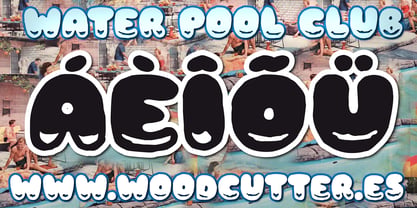
Water Pool Club
by Woodcutter
The Water Pool Club Font Family was designed by Jordi Manero and published by Woodcutter. Water Pool Club contains 2 styles and family package options. More about this family
Water Pool Club is a typeface family in uppercase letters with accents, featuring two styles that channel a retro fancy aesthetic inspired by summer clubs, poolside posters, and vintage magazine covers. The Water Pool Club font displays rounded, bold, and imperfect characters, each with a solid shadow at its base, creating a playful 3D effect, as if the letters are floating under the sun. It radiates a summery, joyful, and nostalgic vibe reminiscent of mid-century advertising.
The second variant, Water Pool Club Black, features the same character shapes but in a fully solid black version, removing the shadow to deliver a bolder, more direct visual punch. While retaining its fun personality, this version emphasizes graphic strength and visual impact. Both fonts are ideal for headlines, logos, packaging, t-shirts, party posters, or editorial projects looking to express fun, vibrancy, and carefree energy.
Water Pool Club seamlessly blends vintage charm with modern graphic appeal, offering designers a versatile tool to create messages full of character and flair. Its stylized, laid-back aesthetic makes it perfect for designs that want to stand out with boldness and freshness.